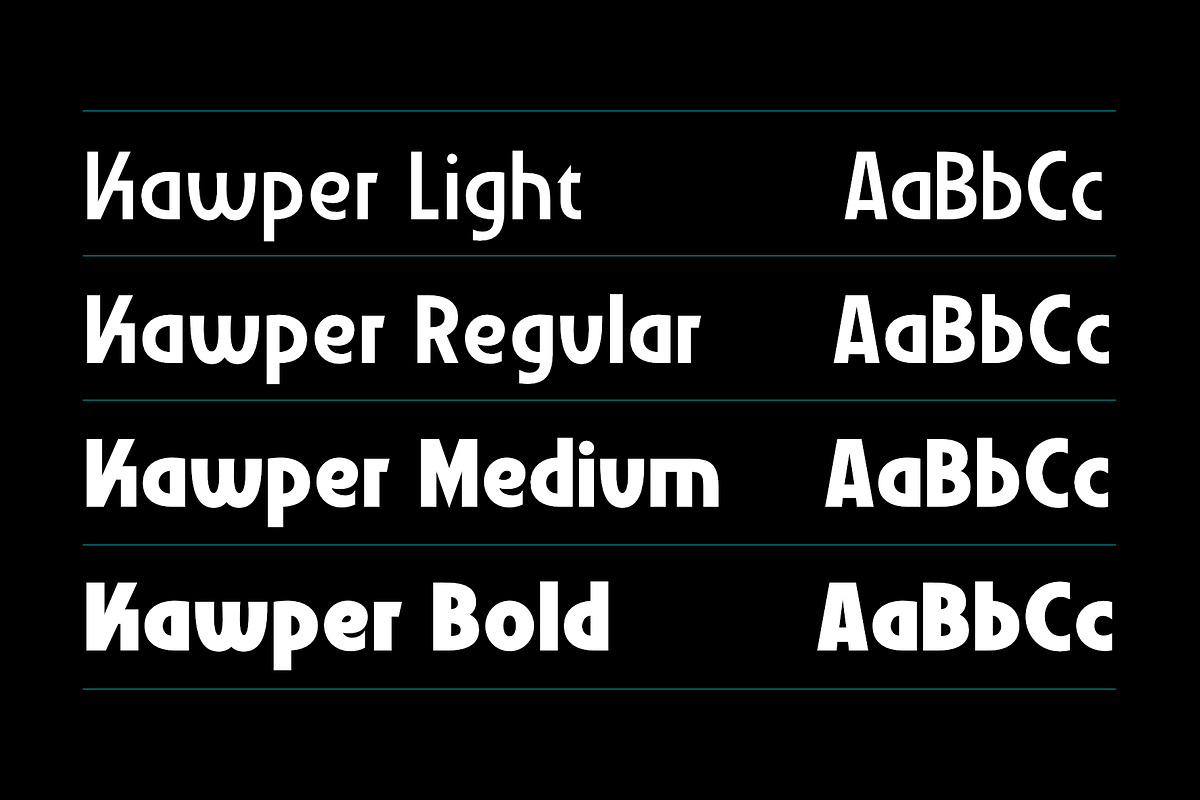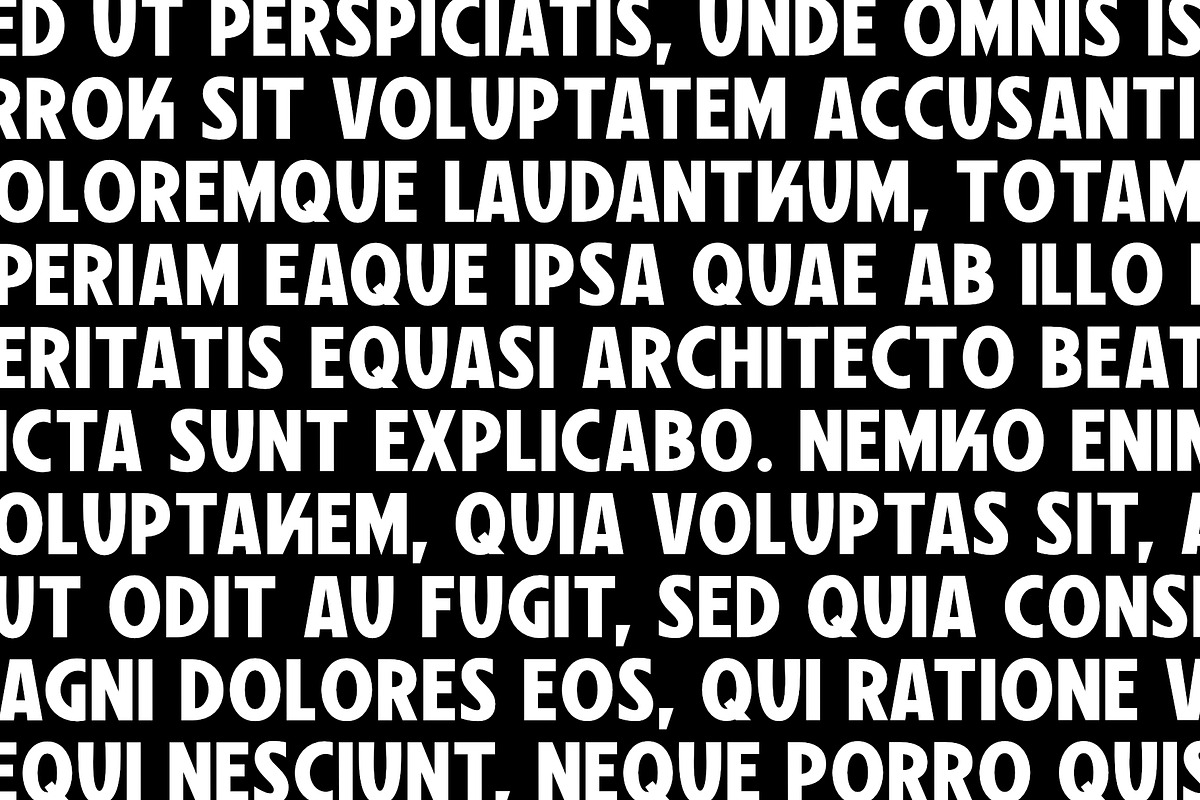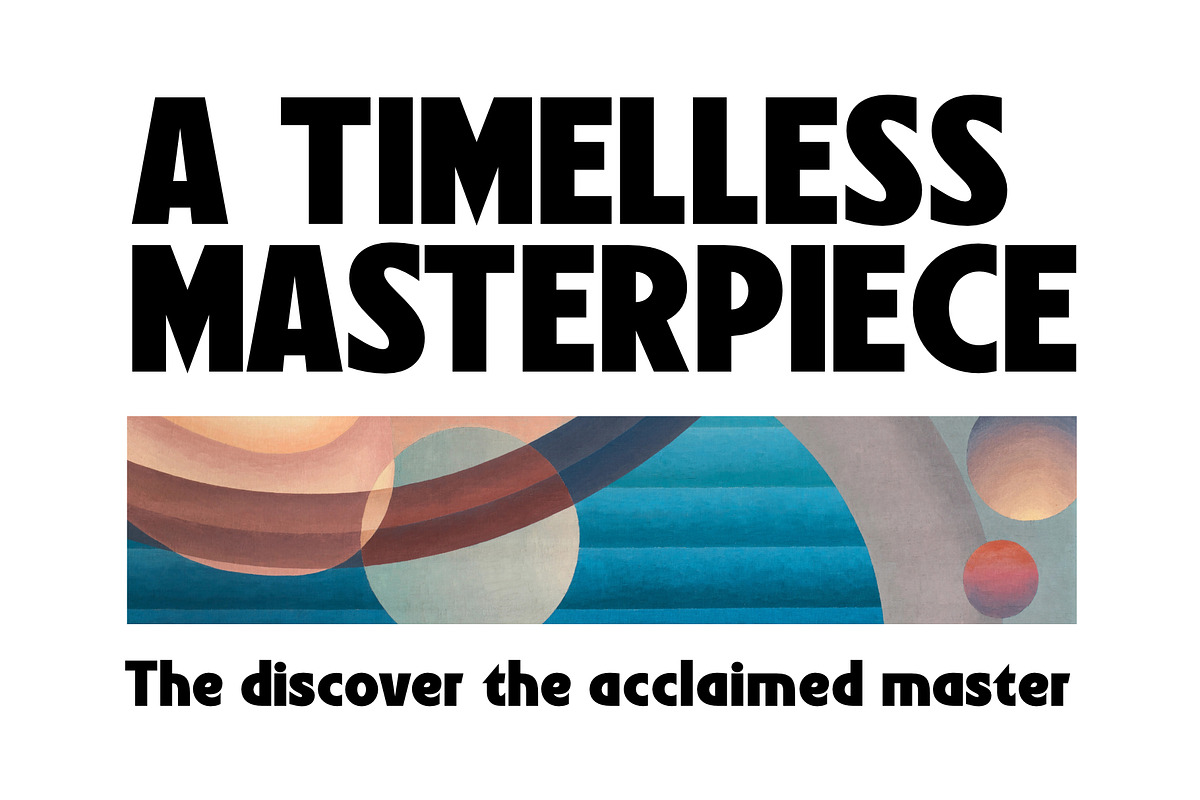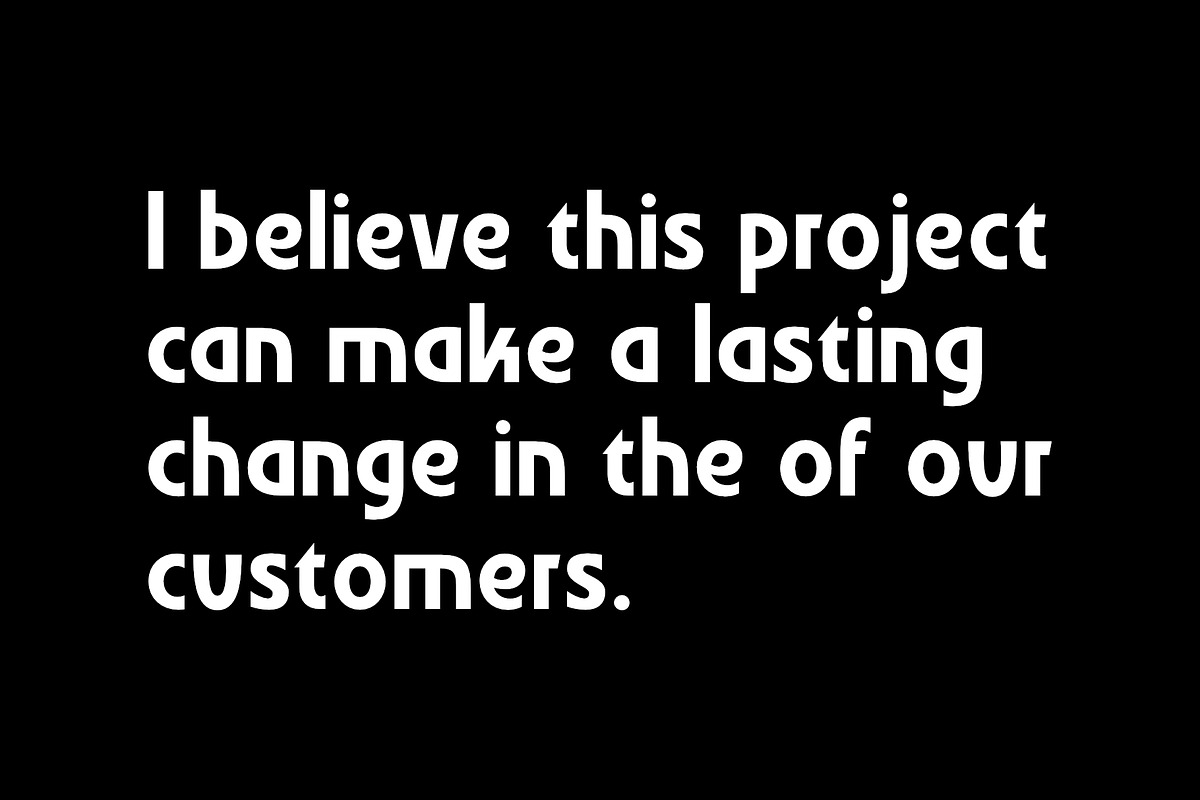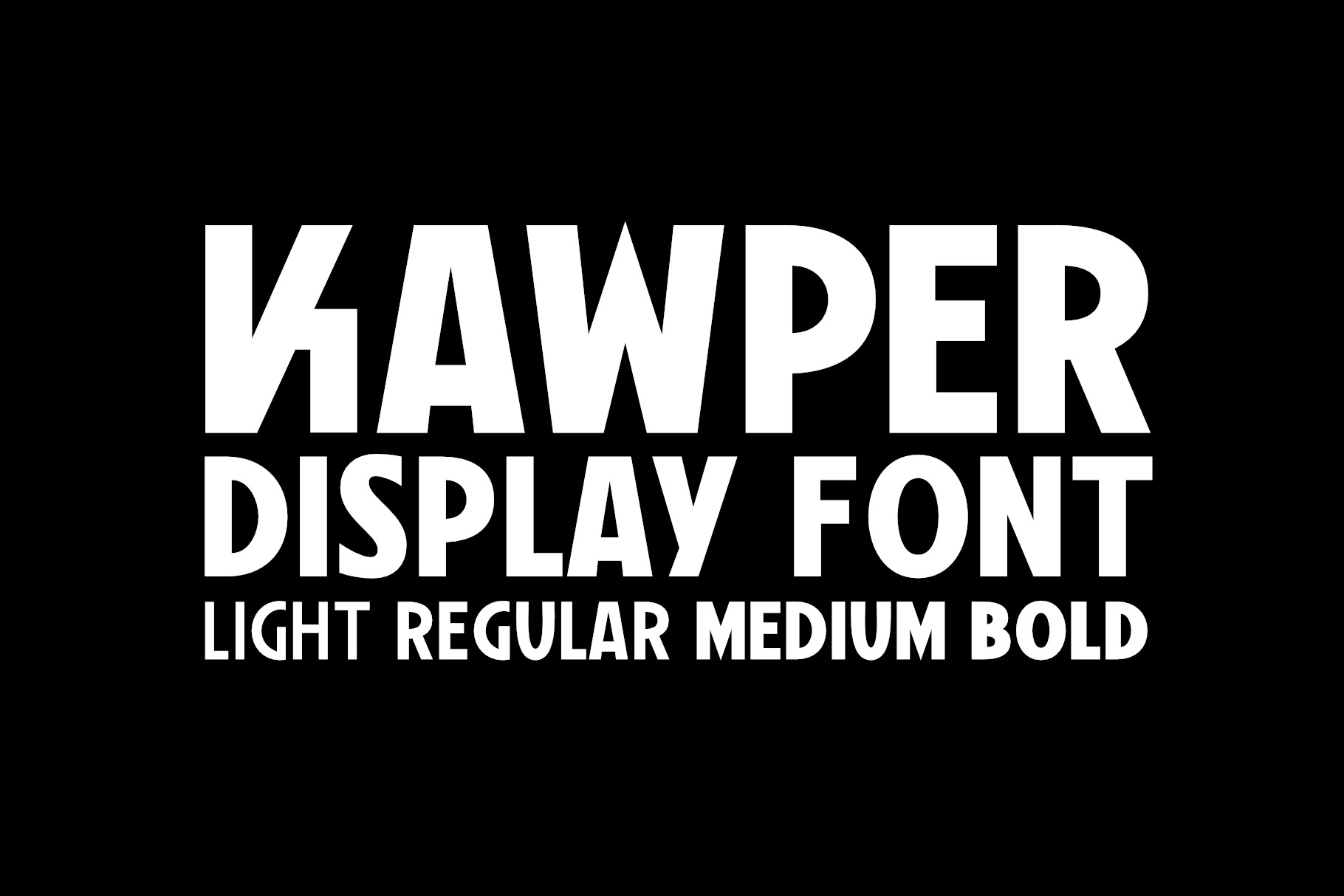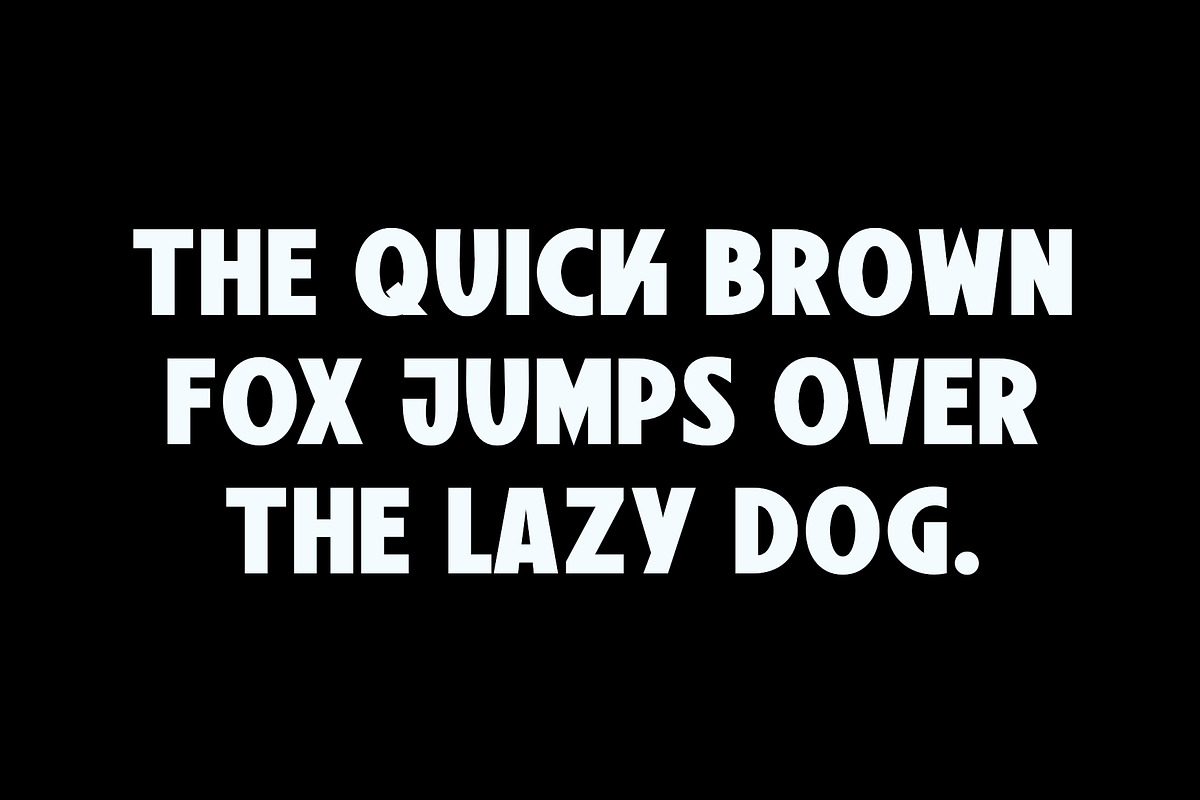
Kawper Family Font | Four Weights
Kawper is a family of fonts with four weights. It contains 250 glyphs. The font attracts attention with its original style and characteristic letter "K". Kawper fonts are ideal for graphic projects with an intriguing style, they will work well in poster design, branding, logo design and clothing branding and other projects.